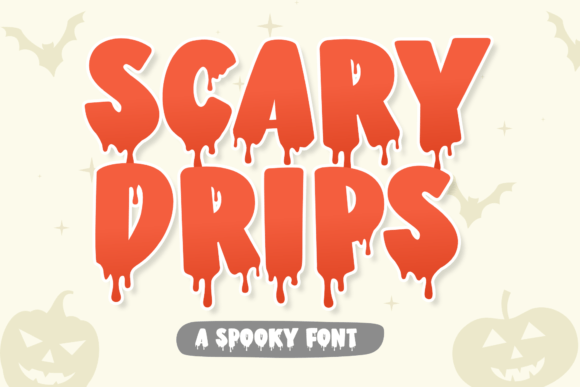
Looking to add a spine-chilling touch to your projects? Look no further than Scary Drips Font! Created by Holydie Studio, this scary and wild display font is the perfect choice for all your Horror or Halloween-themed designs.
With its dripping style, Scary Drips Font exudes an eerie and spooky aura that is sure to captivate users and grab their attention. This font is specifically designed to take your projects to the next level, making it the best choice for Silhouette Cameo users who want to create truly standout designs.
Imagine the impact of using Scary Drips Font on your Halloween party invitations. The dripping letters will send shivers down your guests' spines, creating an atmosphere of mystery and excitement. This font is guaranteed to make a lasting impression and set your invitations apart from the rest.
But the versatility of Scary Drips Font doesn't end there. It's also perfect for horror movie posters, haunted house flyers, and spooky social media graphics. Its unique and captivating appearance will instantly draw attention and make your designs stand out from the crowd.
What sets Scary Drips Font apart is its ability to evoke strong emotions. The combination of its chilling design and the anticipation it creates is bound to send a thrill down your spine. It's the perfect tool to amplify the fear factor in your projects and leave a lasting impact on your audience.
Not only does Scary Drips Font offer an unparalleled visual experience, but it's also incredibly easy to use. Whether you're a professional designer or just starting out, this font will enable you to effortlessly create impressive designs that will leave everyone spellbound.